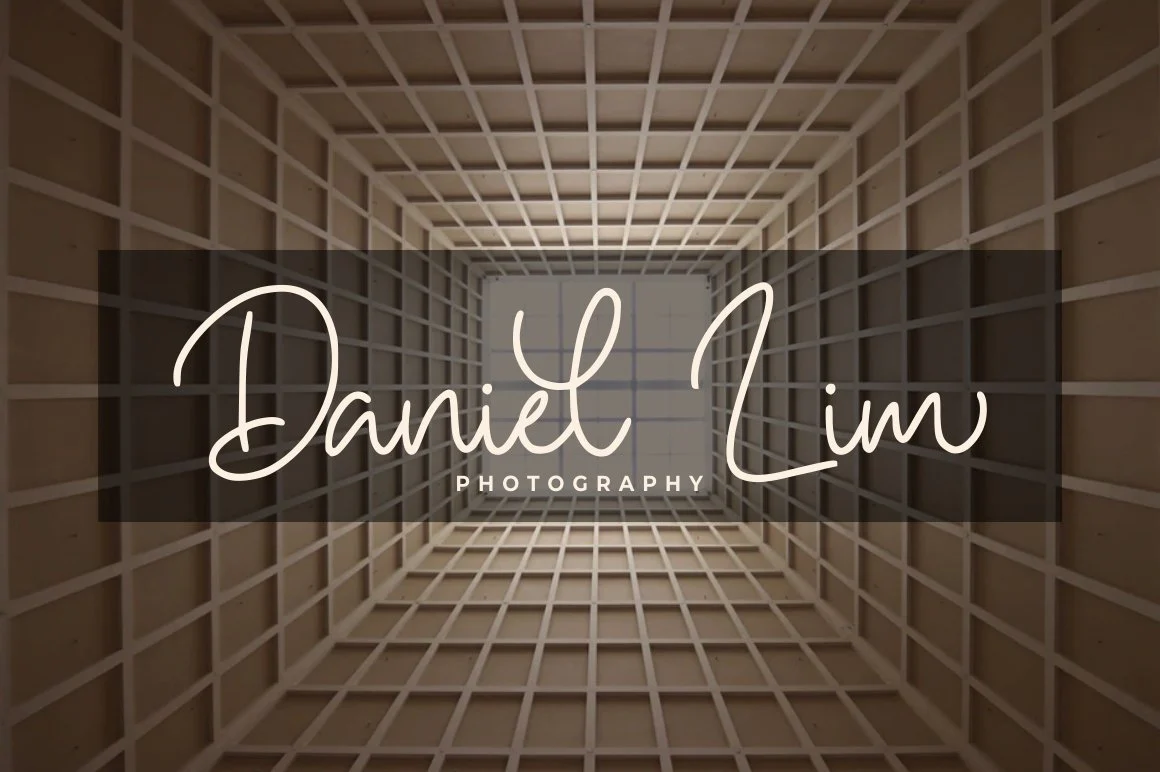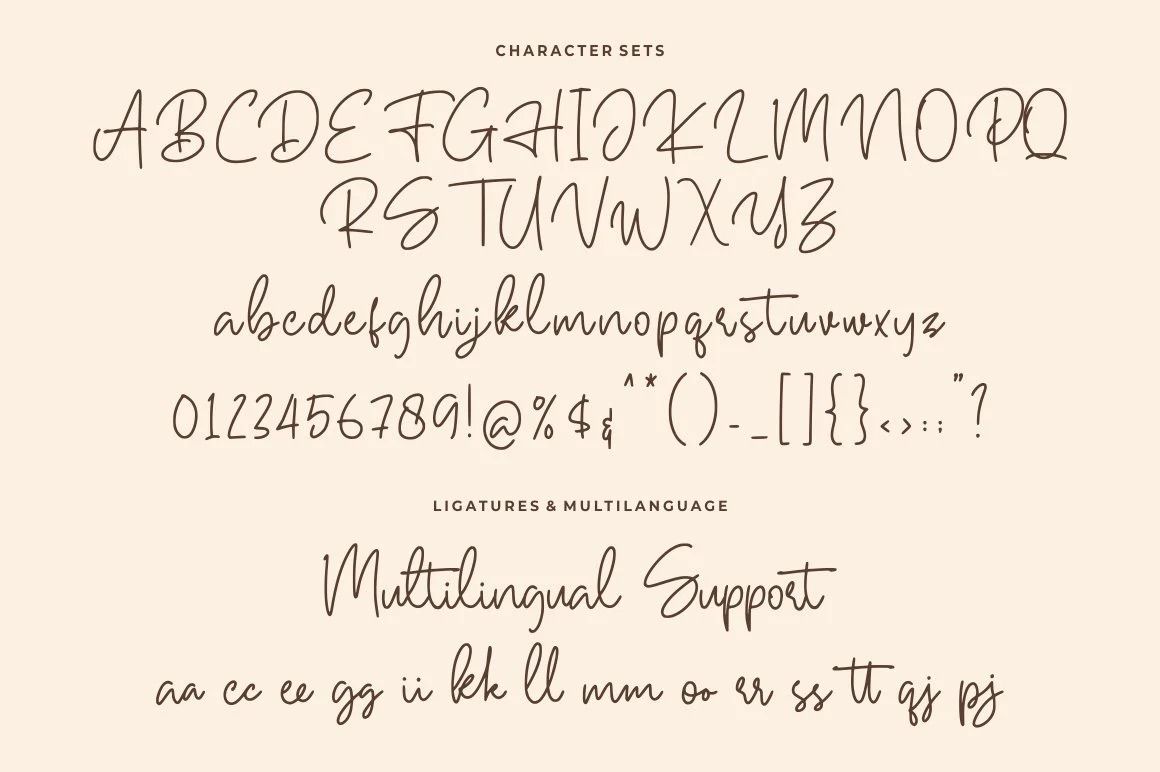
Hallywood - Handwritten Script Font
Introducing Hallywood - Handwritten Script Font
This Font can be used for any variety of purposes, such as:
Signature, Photography, Wedding Ceremony, Invitation, Packaging, Logo Type, Branding Design, Fashion and also can be used for Business purpose.
This Font Template contains Modern, Elegant, Creative, Professional and Unique Concept.
Introducing Hallywood - Handwritten Script Font
This Font can be used for any variety of purposes, such as:
Signature, Photography, Wedding Ceremony, Invitation, Packaging, Logo Type, Branding Design, Fashion and also can be used for Business purpose.
This Font Template contains Modern, Elegant, Creative, Professional and Unique Concept.